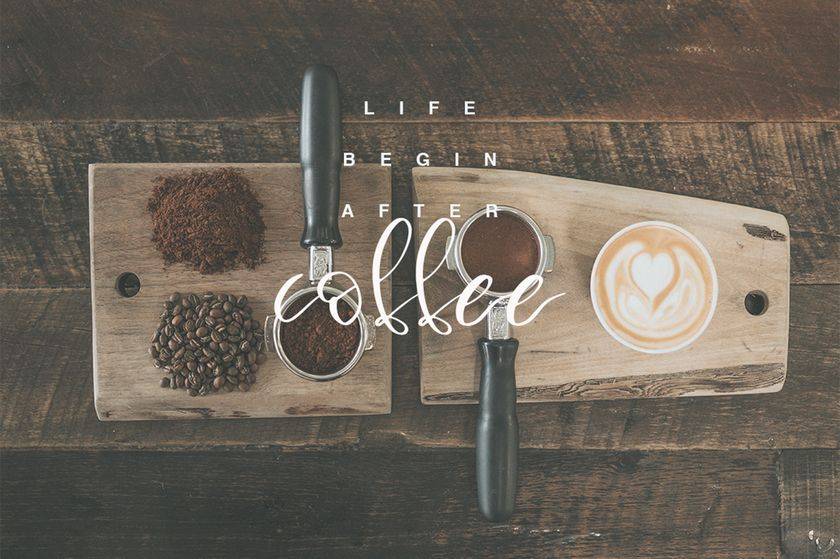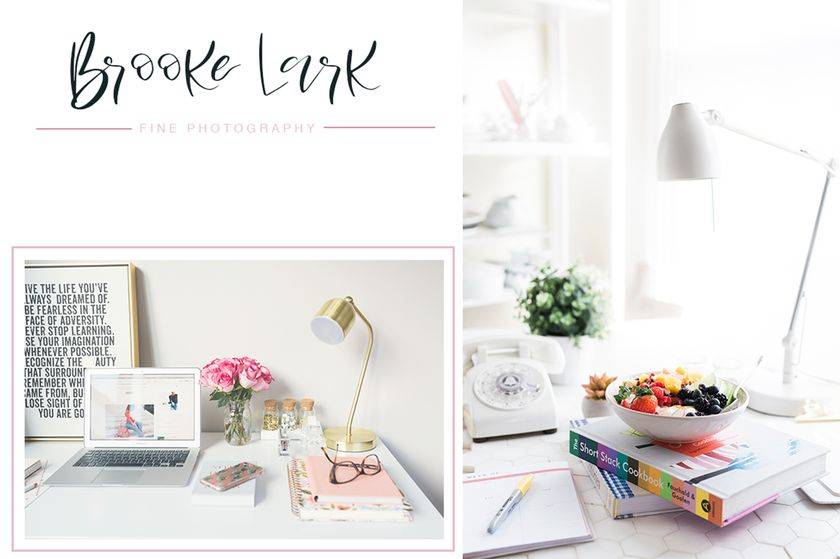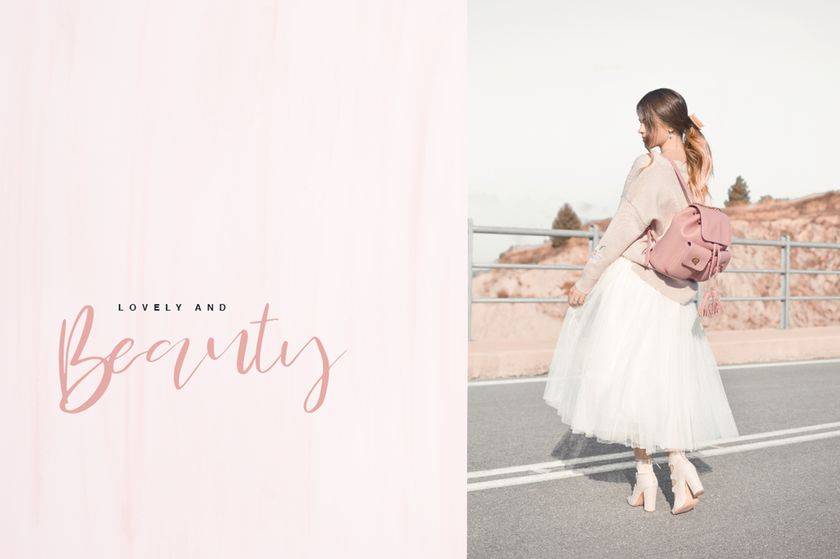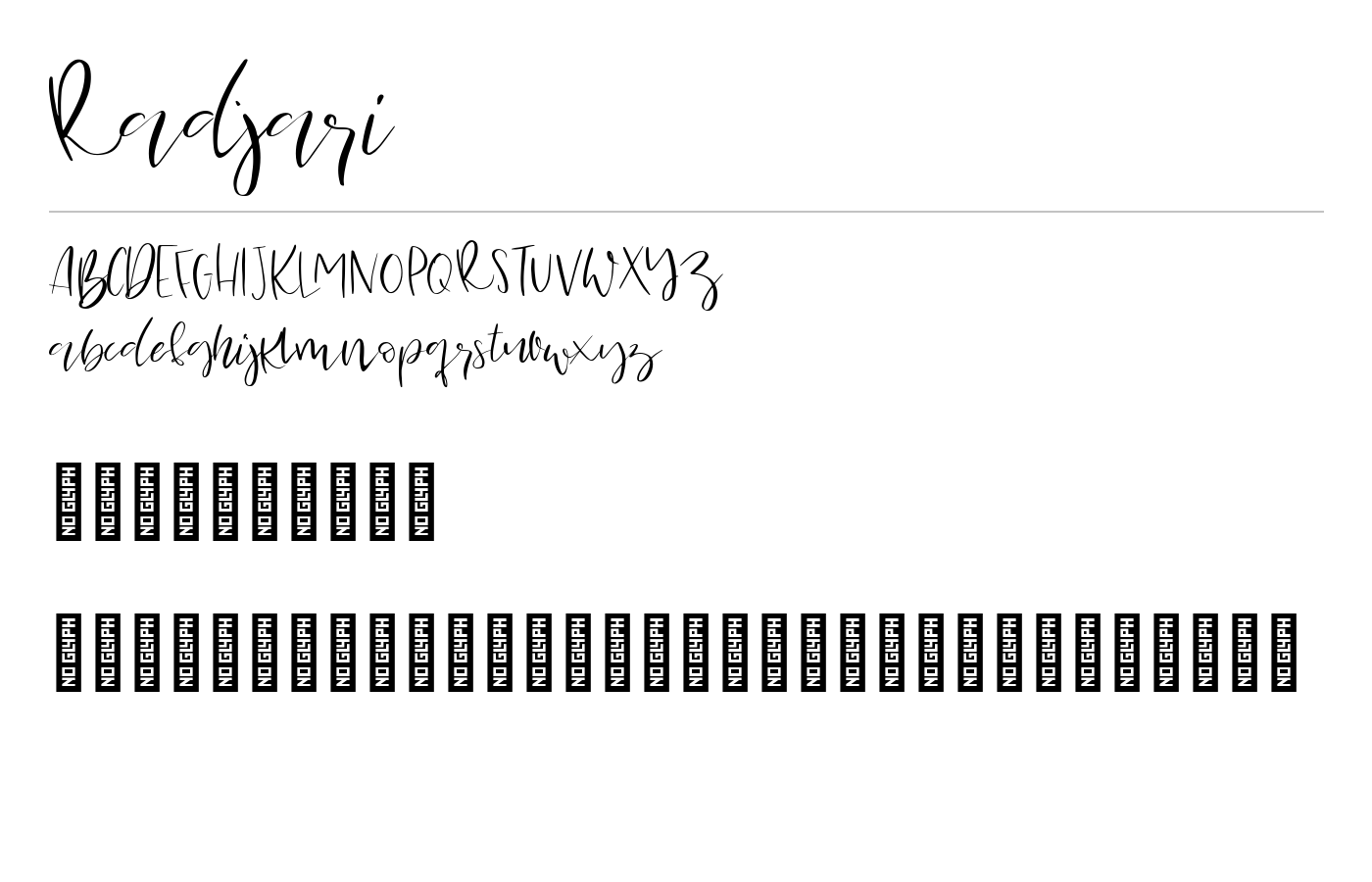
Radjari is a delicate and elegant handwritten script font characterized by its thin, flowing strokes and playful yet refined letterforms. Its airy, informal style with a high contrast between thick and thin lines gives it a personal and artistic feel, making it perfect for creative projects like invitations, branding, and feminine lifestyle designs. This font adds a touch of charm and sophistication while maintaining a casual, approachable vibe.
Radjari Font
About Radjari Font